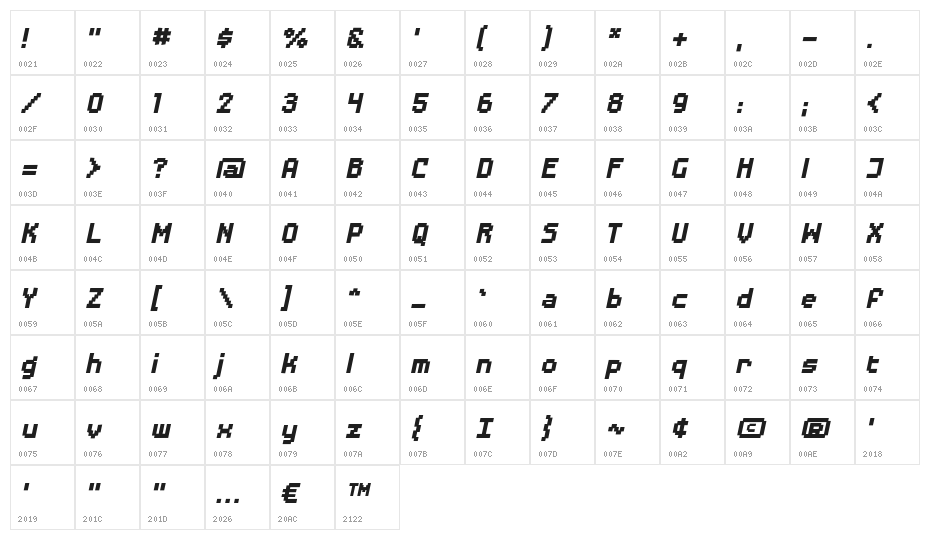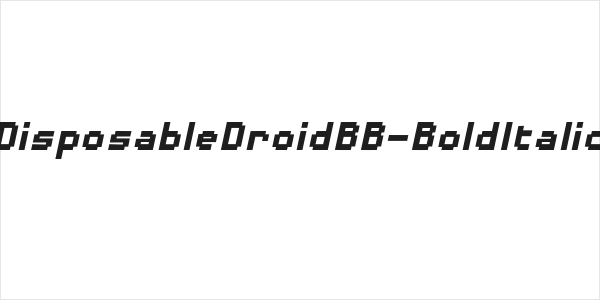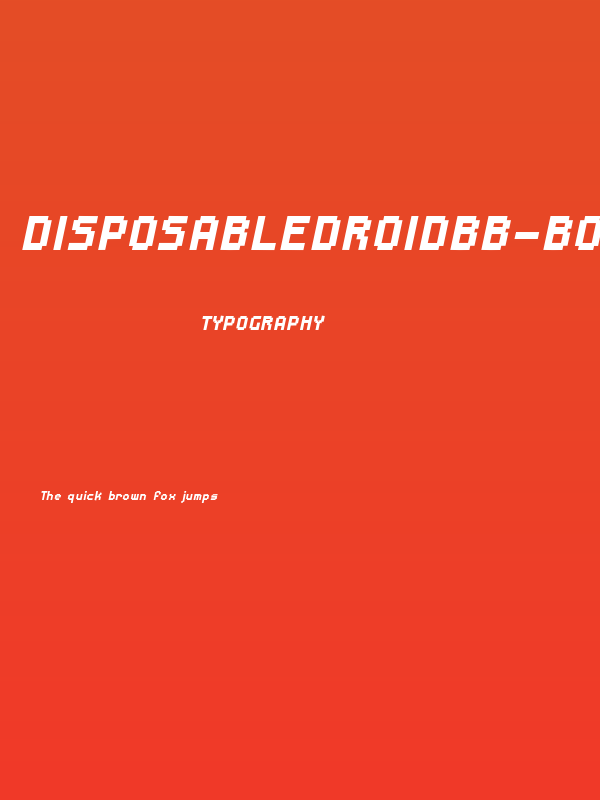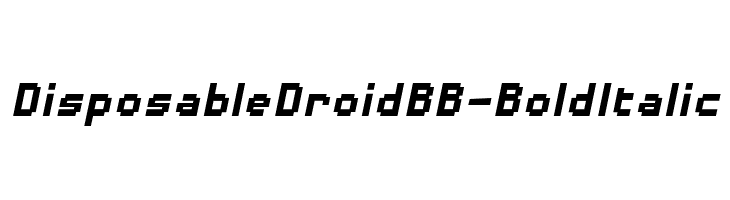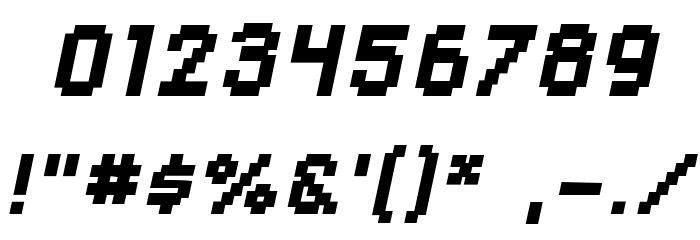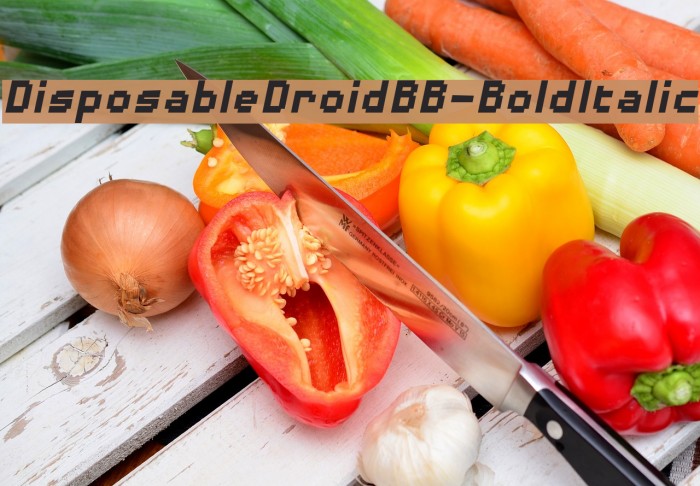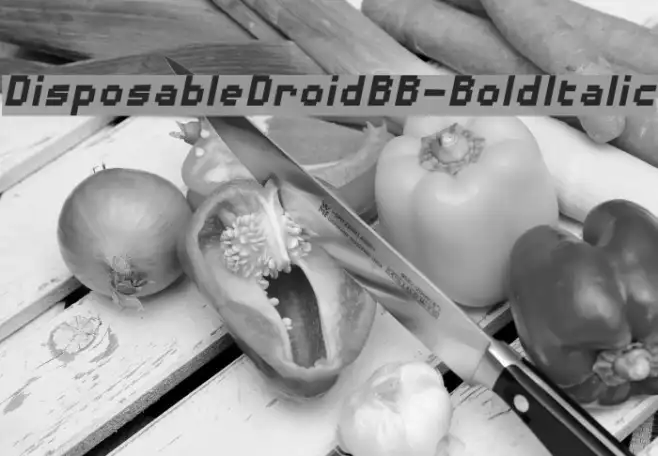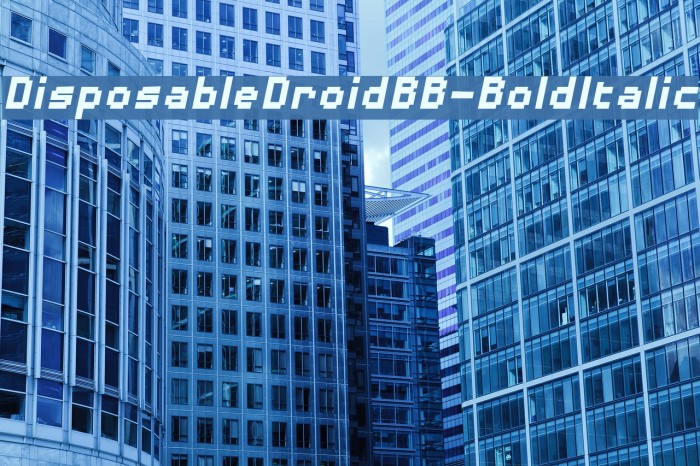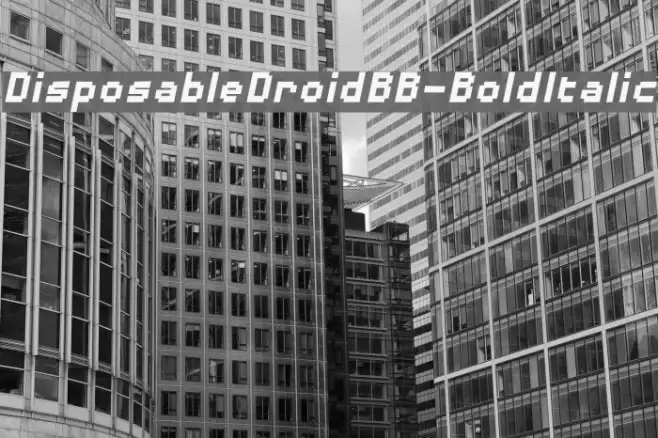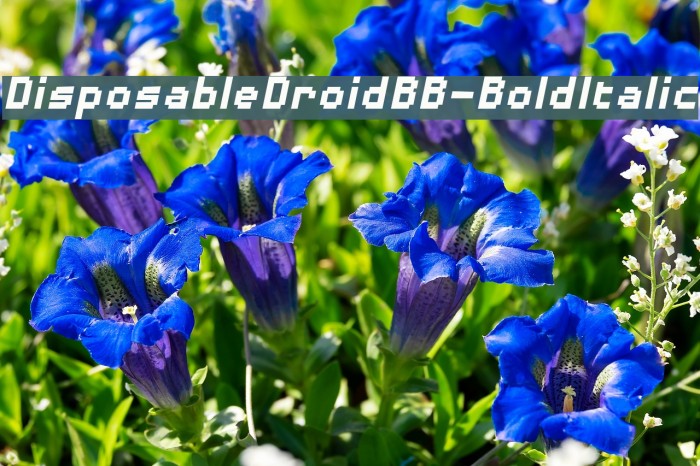
DisposableDroidBB-BoldItalic Font
DisposableDroidBB-BoldItalic Description
This font features a bold and italicized style with a distinct pixelated, blocky appearance reminiscent of retro video game graphics. The characters are uniformly structured, with sharp angles and a consistent thickness throughout, giving it a digital and futuristic feel. The uppercase and lowercase letters maintain a cohesive design, while the numerals and special characters complement the overall aesthetic. Its unique style makes it stand out, ideal for projects that require a nostalgic or tech-inspired look.
| Overall Style | Retro, Digital |
| Use Case | Logos, Headlines, Posters |
| Proposed Projects | Ideal for video game design, tech-themed posters, retro-style branding, and digital art projects. |